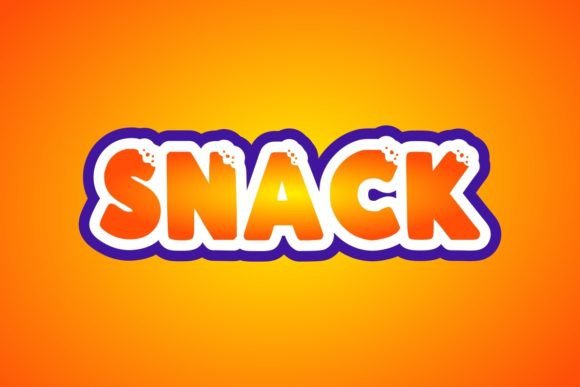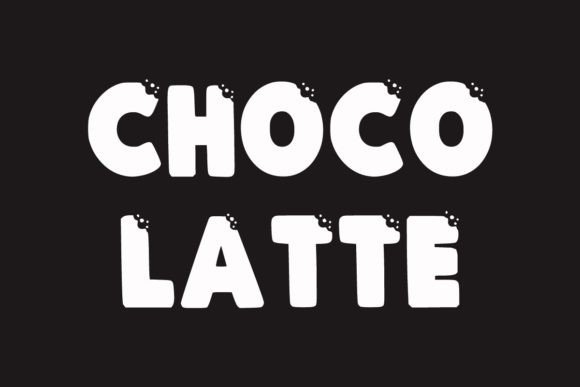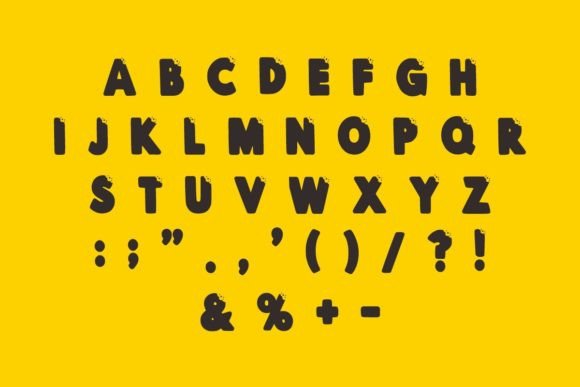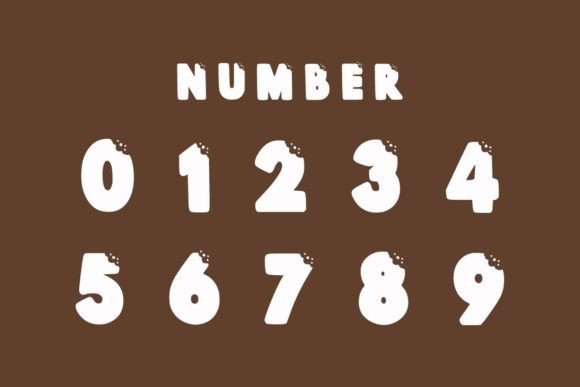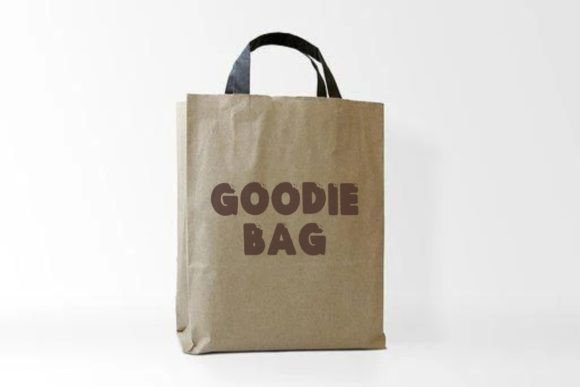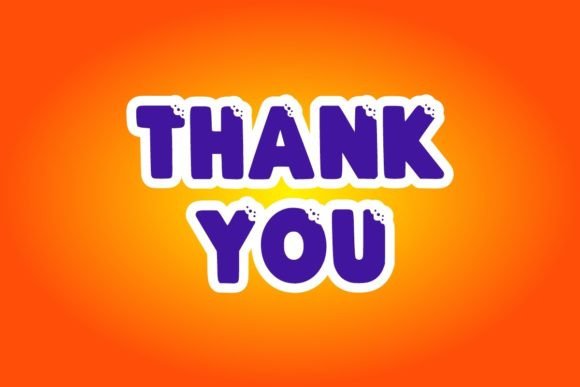
Introducing Choco Cookies Font: The Perfect Addition to Your Design Collection
Are you tired of using the same old fonts in your designs? Do you want to add a touch of fun and friendliness to your projects? Look no further than the Choco Cookies font! This playful, cartoon-inspired font is perfect for designers and crafters who want to create engaging and eye-catching designs.
What is Choco Cookies Font?
Choco Cookies is a funny, cartoon, childish, and easy-to-read display font that conveys impeccable friendliness. Its unique and quirky design makes it perfect for a variety of projects, from crafts and digital designs to logo text, presentations, and book covers. Whether you’re creating a design for a children’s book, a greeting card, or a social media post, Choco Cookies font is the right choice.
Key Features of Choco Cookies Font
- Fun and playful design: Choco Cookies font has a unique and playful design that is sure to grab attention. Its cartoon-inspired style makes it perfect for designs that require a touch of whimsy and fun.
- Easy to read: Despite its playful design, Choco Cookies font is easy to read, making it perfect for use in a variety of projects, from titles and headings to body text.
- Childish and friendly: Choco Cookies font conveys a sense of friendliness and approachability, making it perfect for designs that require a childish or playful touch.
- Versatile: Choco Cookies font can be used in a variety of projects, from crafts and digital designs to logo text, presentations, and book covers.
Why Choose Choco Cookies Font?
So, why choose Choco Cookies font for your designs? Here are just a few reasons:
- Add a touch of fun to your designs: Choco Cookies font is the perfect way to add a touch of fun and whimsy to your designs. Its playful design is sure to grab attention and make your designs stand out.
- Create engaging designs: Choco Cookies font is designed to be engaging and eye-catching. Its unique and quirky design makes it perfect for designs that require a touch of personality.
- Perfect for child-related designs: Choco Cookies font is perfect for designs that require a childish or playful touch. Its friendly and approachable design makes it perfect for use in children’s books, greeting cards, and other child-related designs.
- Use it for titles and headings: Choco Cookies font is perfect for use in titles and headings. Its playful design makes it perfect for grabbing attention and adding a touch of fun to your designs.
- Use it for body text: Choco Cookies font is also easy to read, making it perfect for use in body text. Use it to add a touch of personality to your designs.
In conclusion, Choco Cookies font is a fun, playful, and versatile font that is perfect for designers and crafters who want to add a touch of friendliness and whimsy to their designs. Its unique and quirky design makes it perfect for a variety of projects, from crafts and digital designs to logo text, presentations, and book covers. So why not give Choco Cookies font a try? With its easy-to-read design and friendly and approachable style, it’s the perfect addition to your design collection.